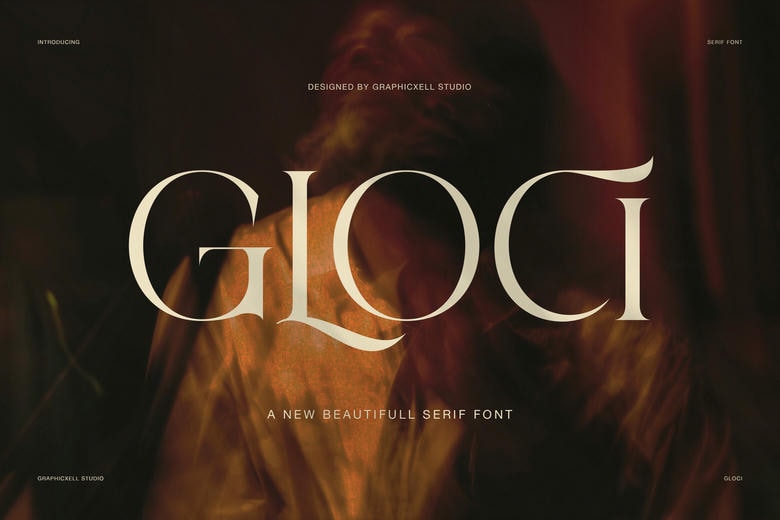
Gloci Font
Gloci is a refined display serif made for elegant branding, stylish editorials, and modern visual identities. Its slim, balanced letterforms add a soft, dramatic touch, giving Gloci a graceful look. Unique alternate characters and ligatures add personality. This classy, artistic serif font is a great choice for premium design projects.
Gloci Serif Font